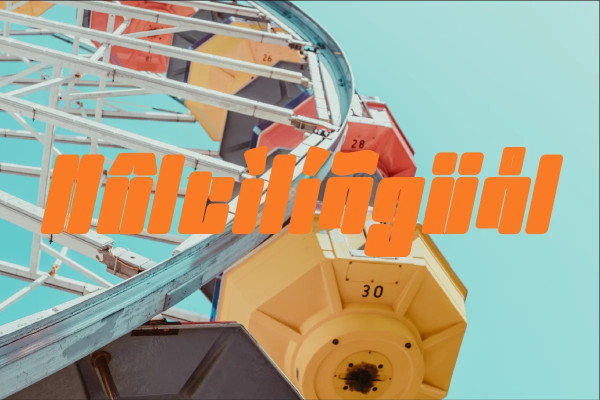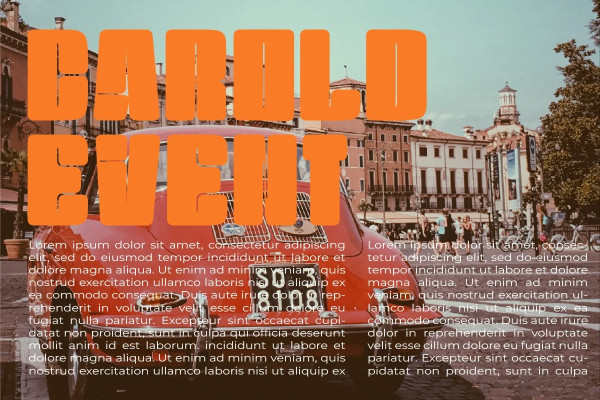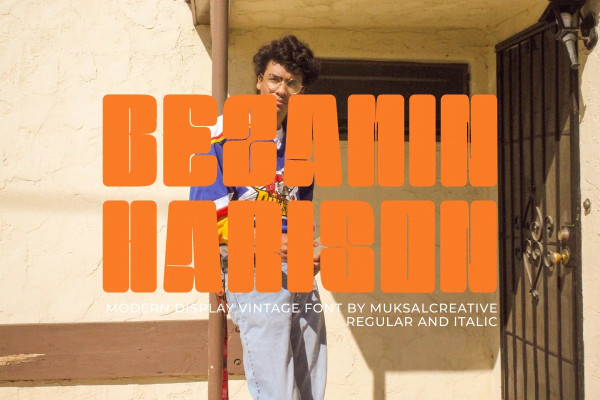
Bezamin Harison Font
Bezamin Harison Font is Modern vintage Display Font, special glyphs, ornament and multilingual support. It’s a very versatile font that works great in large and small sizes. Perfect for editorial projects, Logo design, Clothing Branding, product packaging, magazine headers, or simply as a stylish text overlay to any background image.